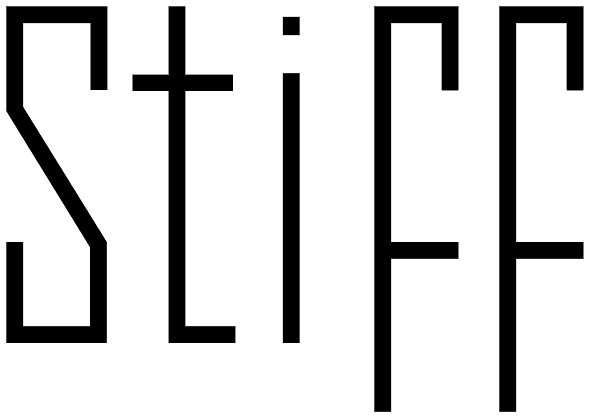
Stiff
We present to you STIFF - a simple, characteristic typeface in a nice, retro style which is angular, geometric and extra narrow. Stiff makes the text look distinctive and unique so it's perfect for titles, subtitles, logotypes or short parts of text...